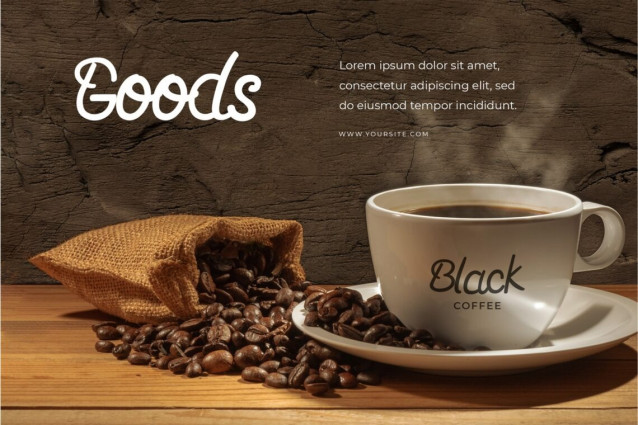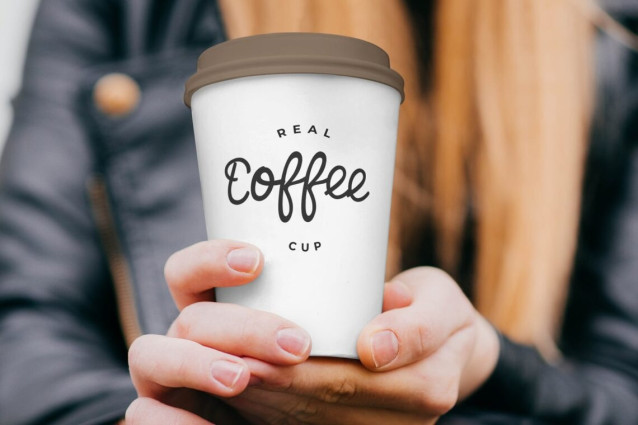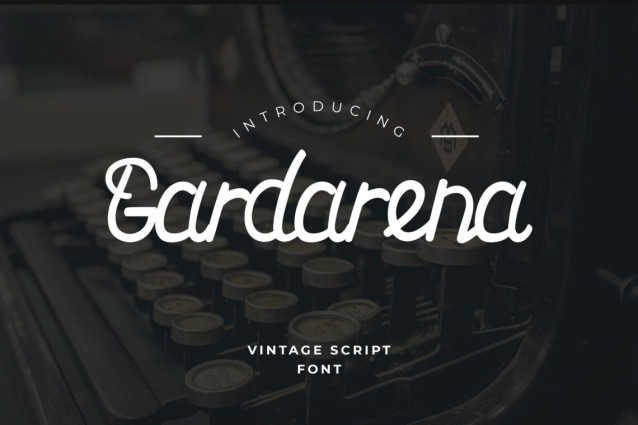
Gardarena Script Font is a font that carries handwriting with sharp and beautiful letters that makes this font look modern, trendy, and elegant. Having a basic style of vintage scripts makes this font look elegant. The alternatives and binders available offer a number of different characters that give your typography a unique look.
It is perfect to be applied in a variety of formal forms such as invitations, labels, menus, logos, fashion, makeup, stationery, letterpress, romantic novels, magazines, books, greeting / wedding cards, packaging, labels and much more.